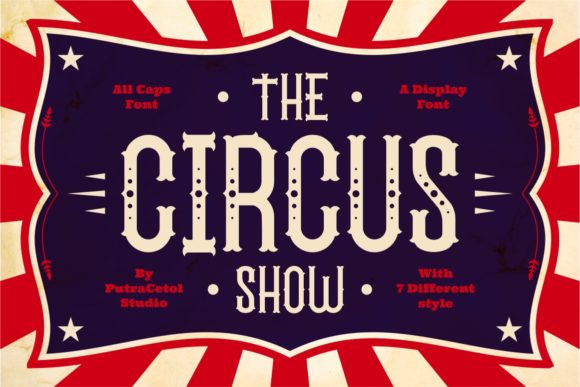
Introducing The Circus Show Family Font, a breathtaking collection of fonts that will transport you back to the vibrant world of American circuses, carnival rides, and edgy '80s tattoos. Created by putracetol, this display font family is designed to captivate and inspire, offering endless possibilities for your creative projects.
With its bold and striking appearance, The Circus Show Family Font is sure to turn heads and make a lasting impression. The seven unique styles included in this amazing collection allow you to effortlessly create multiple one-of-a-kind designs, all from one convenient download.
Each style within The Circus Show Family Font exudes its own personality and charm. From the playful and whimsical to the bold and daring, there is a font style to suit every mood and project. The versatility of this font family ensures that your designs will never be limited or predictable.
Immerse yourself in the nostalgia of a bygone era with The Circus Show Family Font. Let the vibrant colors, energetic atmosphere, and captivating performances of the circus inspire your creativity. Whether you're designing a logo, poster, invitation, or website, this font collection will bring a touch of excitement and authenticity to your work.
Unlock your imagination and unleash your creativity with The Circus Show Family Font. Its expressive and eye-catching letters will instantly grab attention and create a lasting impact. Stand out from the crowd and make a statement with your designs, leaving a memorable impression on your audience.
Embrace the magic and charm of the circus with The Circus Show Family Font. It's time to elevate your designs and showcase your unique style. Capture the essence of the '80s and infuse it into your work with this remarkable font collection. Get ready to astound and mesmerize your audience with The Circus Show Family Font.